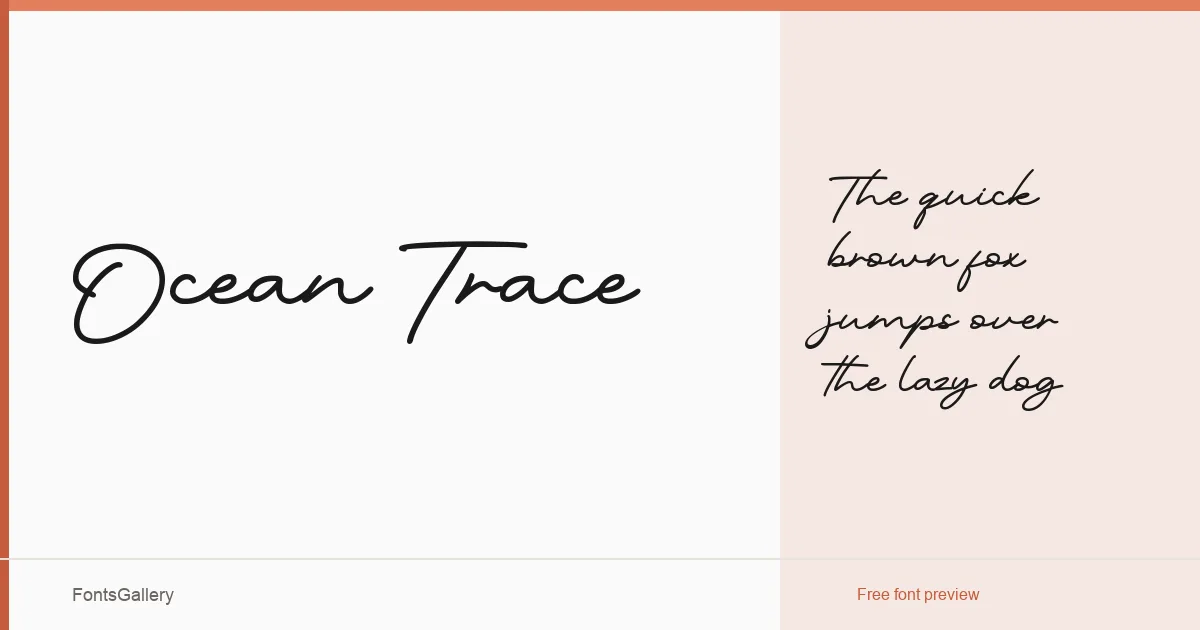
About Ocean Trace Font
Ocean Trace is an elegant script typeface crafted by Letterara, designed to evoke a sense of romance and timeless sophistication. Its flowing letterforms make it a distinctive choice for projects that call for a classic, refined aesthetic. The font carries a graceful charm that feels both personal and polished.
As a script typeface, Ocean Trace features fluid, connected letterforms that embody elegance and romantic sensibility. Its classic character lends it a beautifully traditional quality, with strokes that move with natural rhythm and grace. Every detail is crafted to convey warmth and sophistication across a wide range of decorative applications.
Ocean Trace is ideally suited for logos, wedding stationery, invitation cards, branding projects, and greeting cards where an elegant, heartfelt tone is desired. Its romantic and classic mood makes it especially well-suited for luxury or event-driven design contexts. For a balanced typographic pairing, consider combining Ocean Trace with Aresink or Helvetica to achieve a harmonious contrast between script and complementary typefaces.